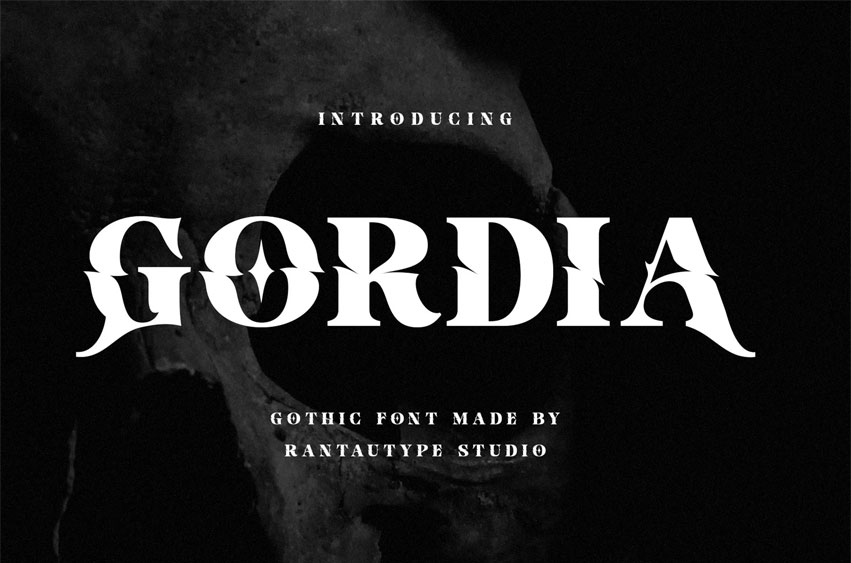
Gordia Gothic Font
Gordia Gothic Font is gothic font with slash in each character.
Gordia is a perfectly choice for any creative endeavor, creating, modern, lifestyle design such as logotype, title, cover, branding, invitations, wedding designs, display and magazine, social media posts, advertisements, printed quotes, product packaging, corporate brand, product designs, labels, photography, watermarks, special events and any other project with gothic touch.